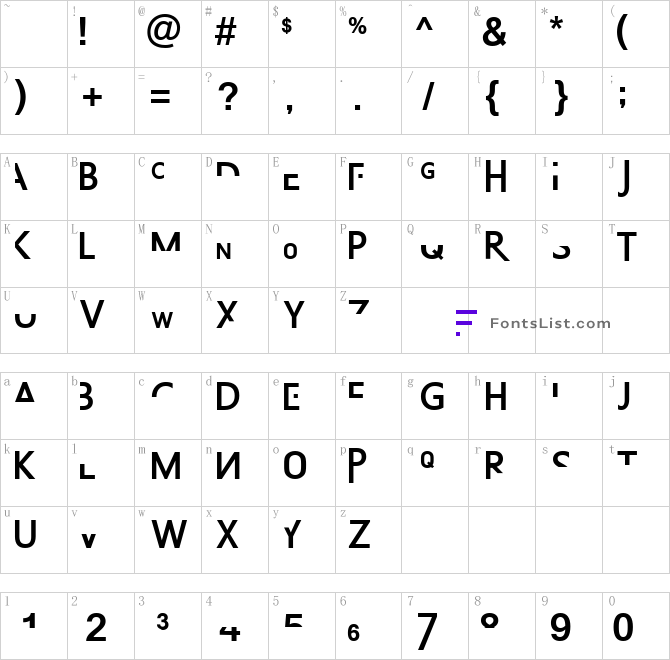
- Font Name:Absurdsans FP
Absurdsans-FP.ttf is a very beautiful artistic font, Absurdsans-FP.ttf is widely used in the design and printing of various books and pictures,Absurdsans-FP.ttf has a strong visual impact,Absurdsans-FP.ttf is a commonly used font in newspapers, magazines and books, and is used in posters, e-commerce Poster design, store design, logo design, font design and other fields.Absurdsans-FP.